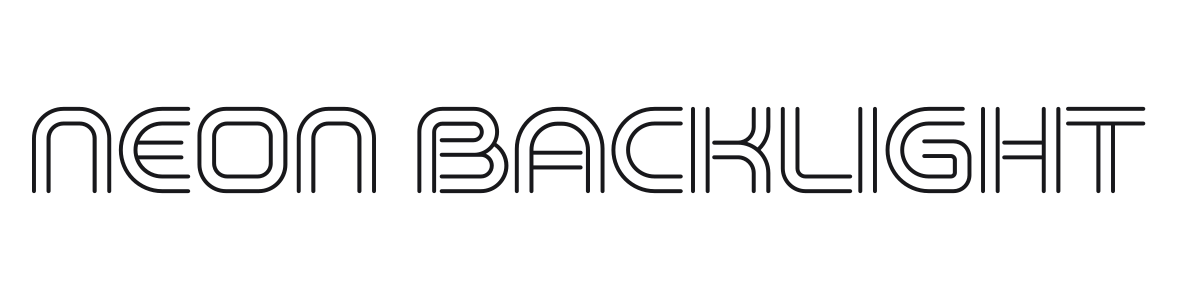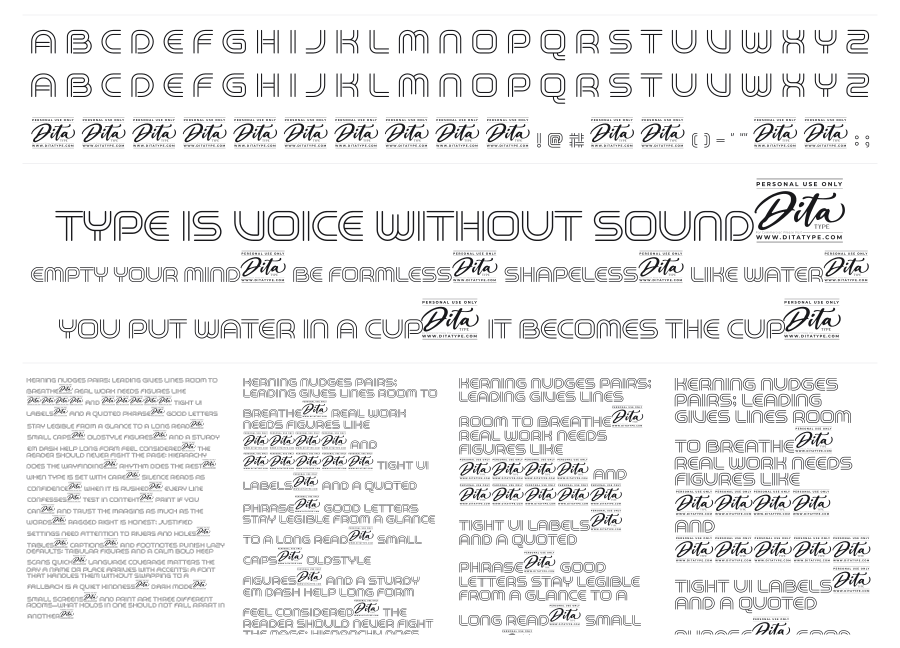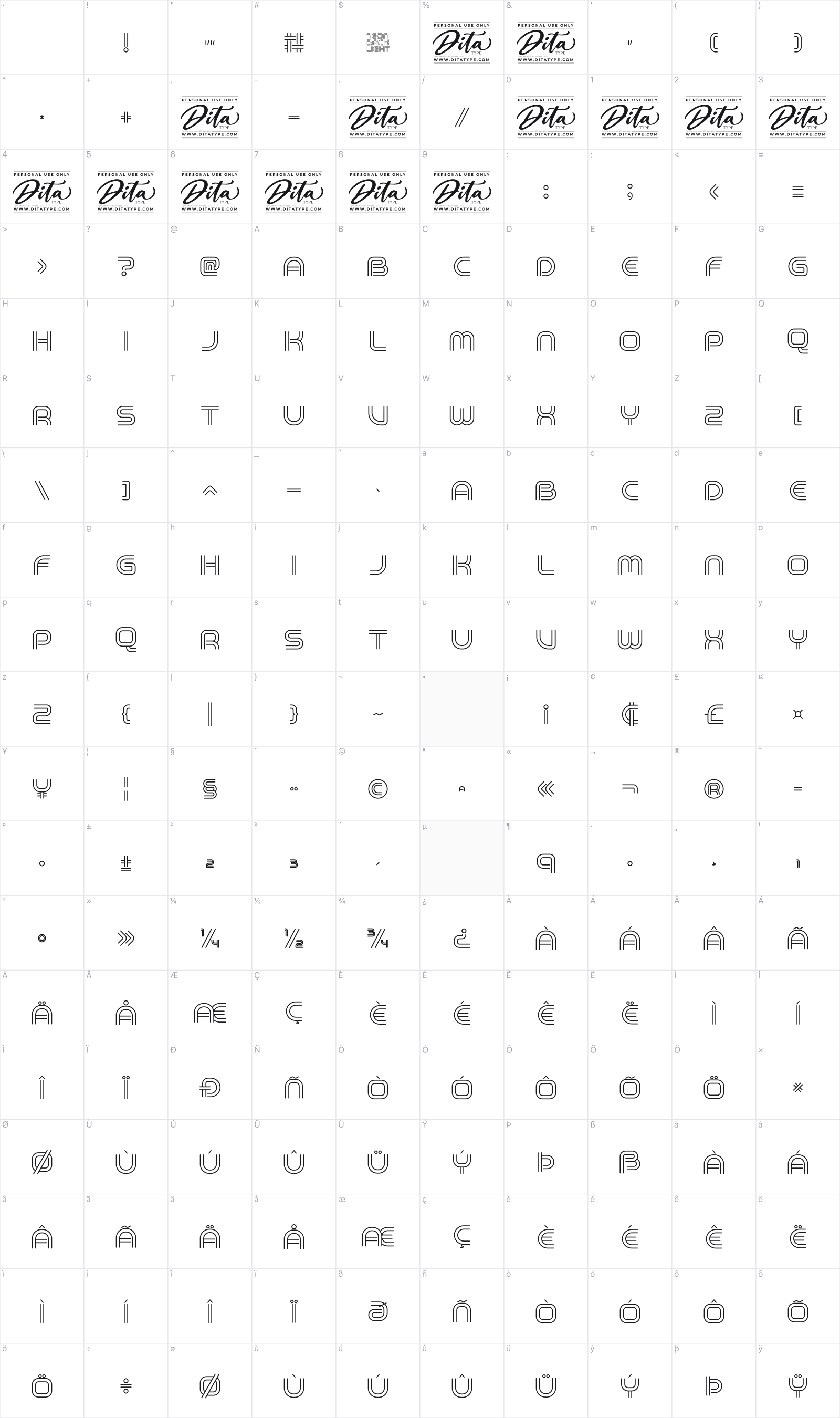
Neon Backlight
Neon Backlight is a geometric outline display font built from concentric parallel strokes that mimic the warm glow of neon tube signage. Each character reads like a lit-up sign, wide and rounded with soft corners that lean into late-1970s retrofuturism. It works best large, where the multi-line construction has room to breathe.